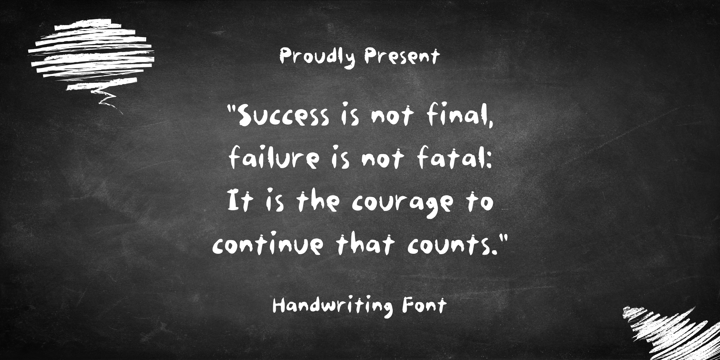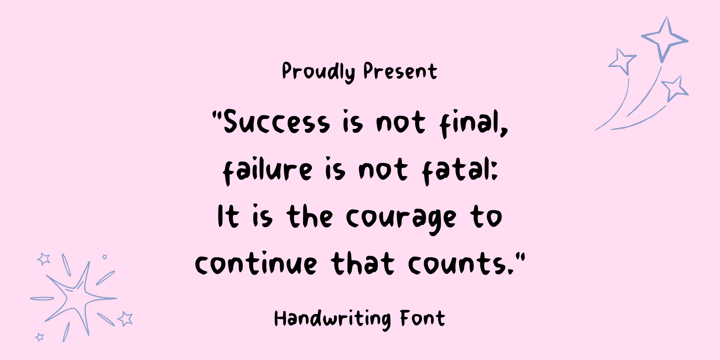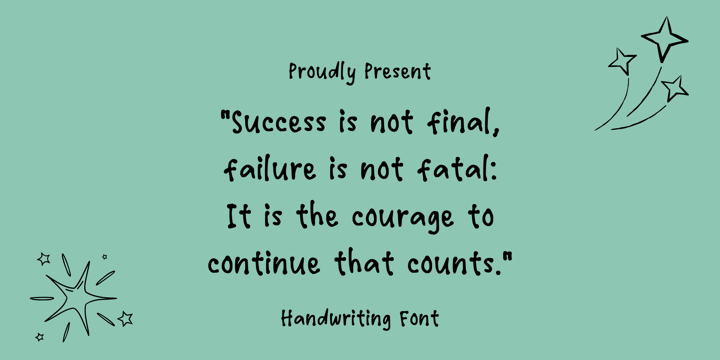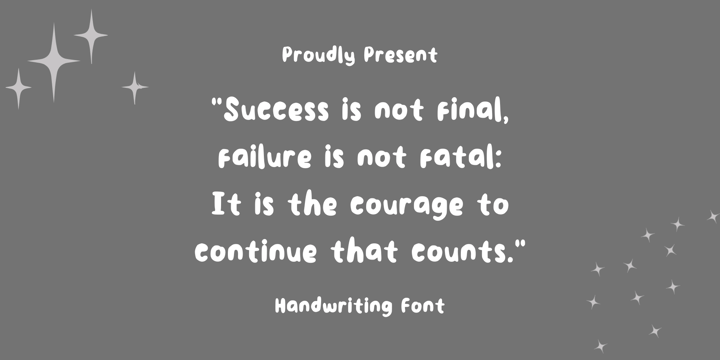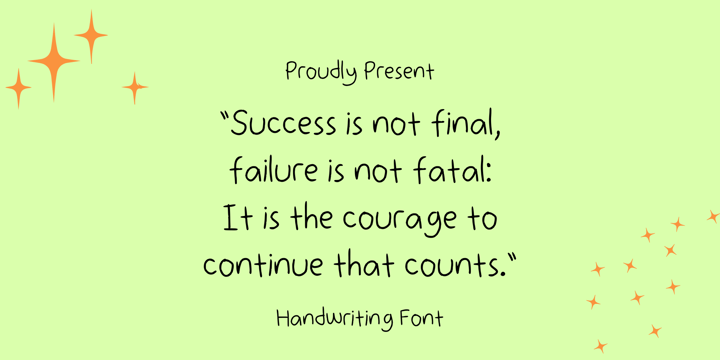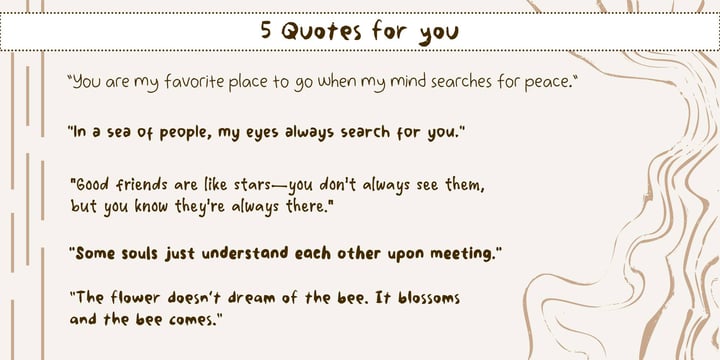
Kedua Bundle
The KEDUA BUNDLE is a delightful collection of five playful and friendly handwritten fonts, perfect for creative and child-themed designs. Each font has its own charm, yet they all share a warm, casual, and approachable feel.